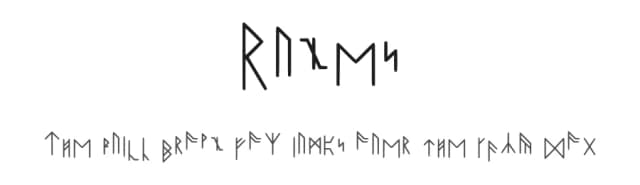
About Runes Font
Runes Font is a versatile dingbats font that works for both headings and body text. Pair it with a contrasting sans-serif or serif font to add visual interest and a clear distinction between titles and body copy.